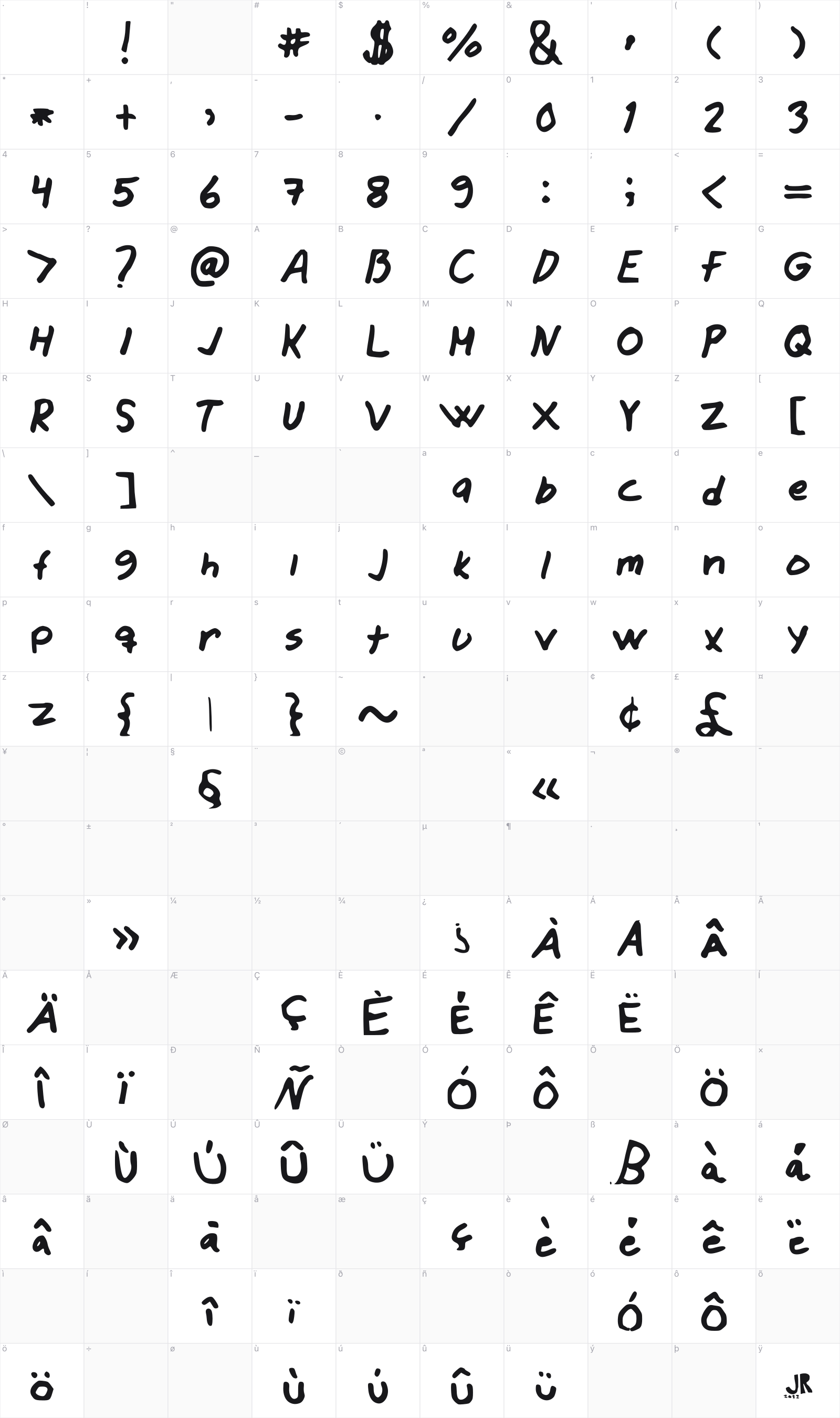
James Jeans
James Jeans is a bold, rounded handwritten face from Jansku Boy that captures the confident strokes of a thick marker on paper. The letterforms feel casual and friendly, with enough weight to hold their own in headlines and short display text. There's a loose, informal warmth to it that makes it a good pick for branding, packaging, or social content where you want something that reads as approachable and human.